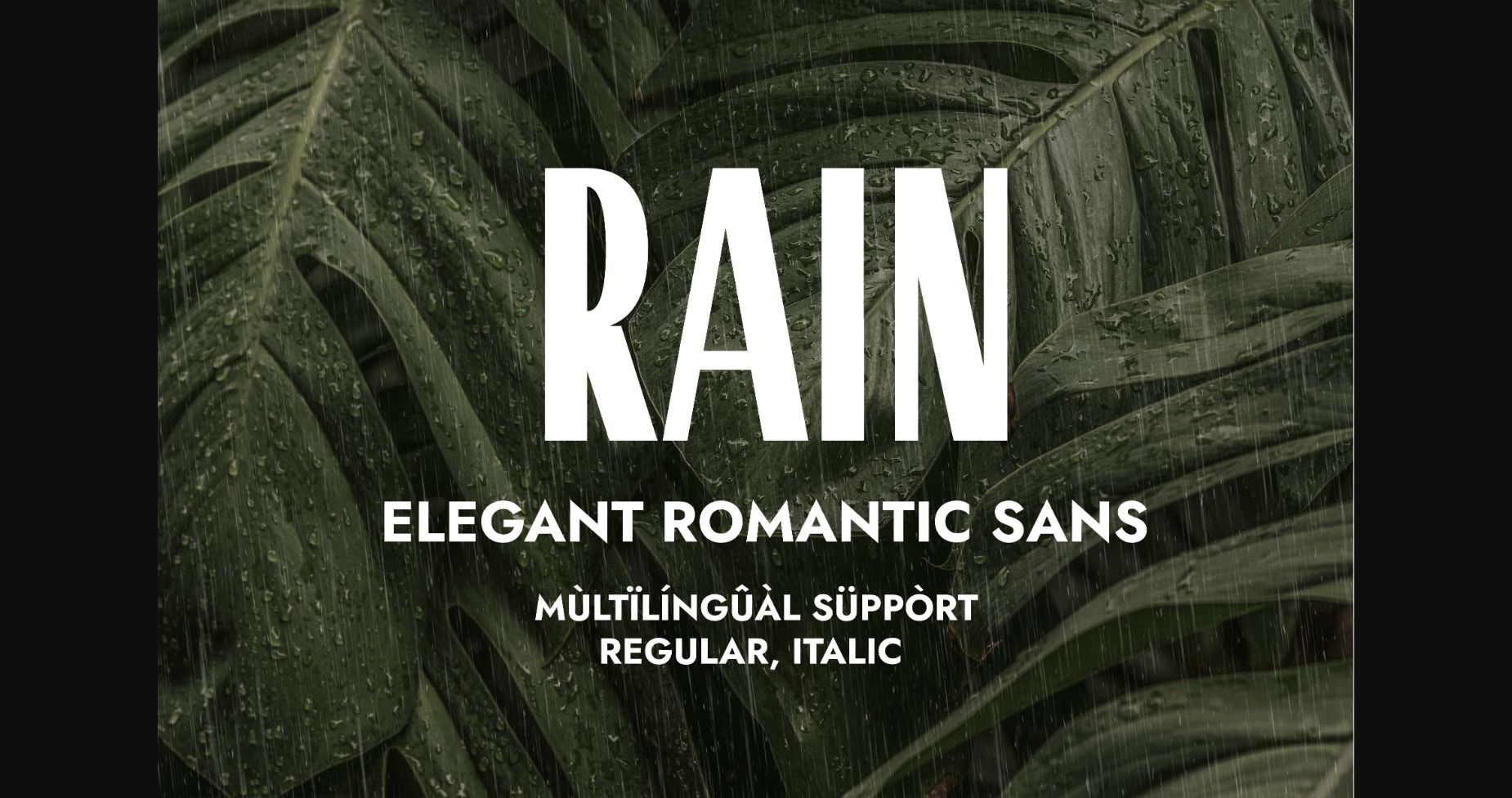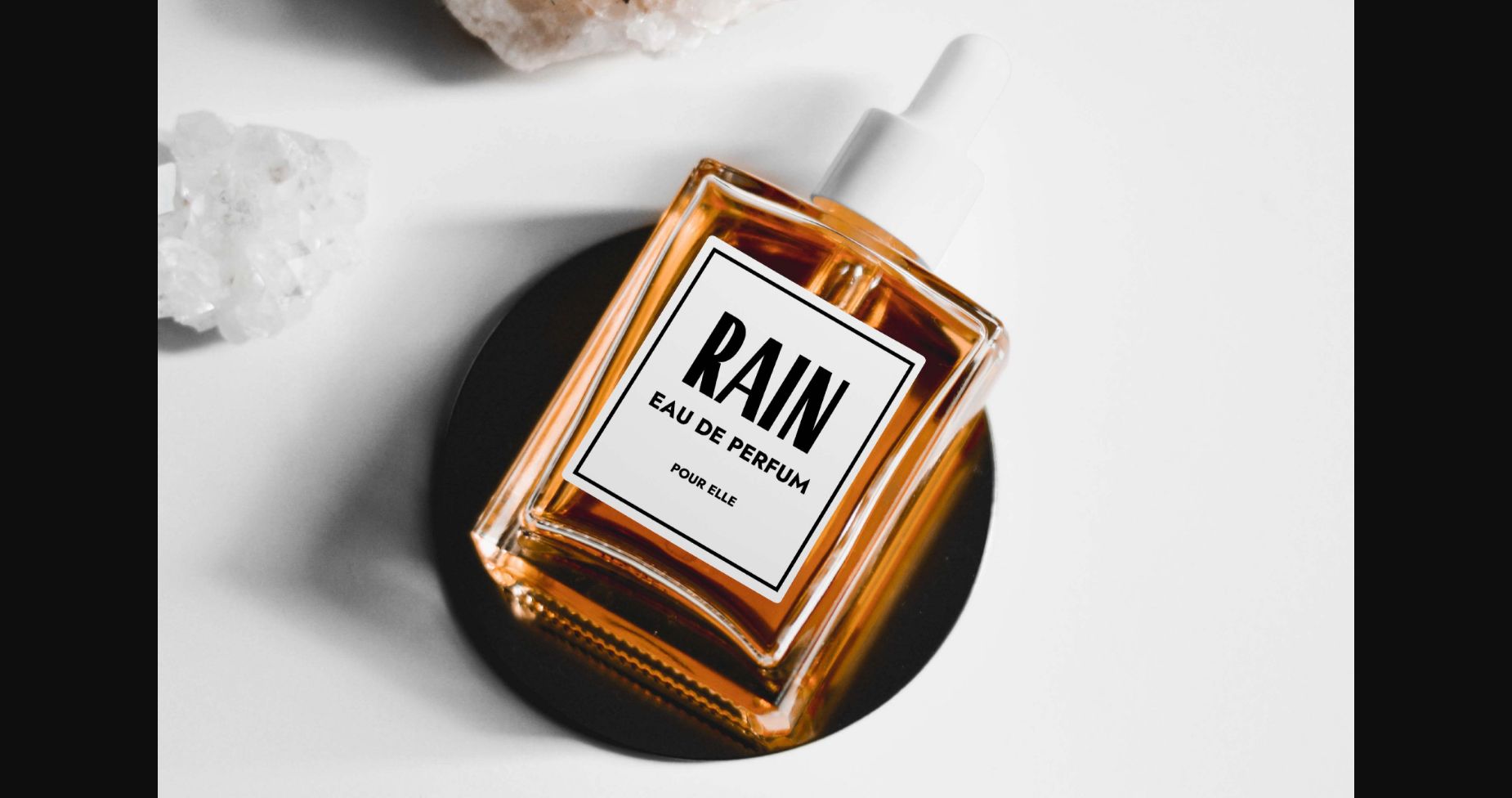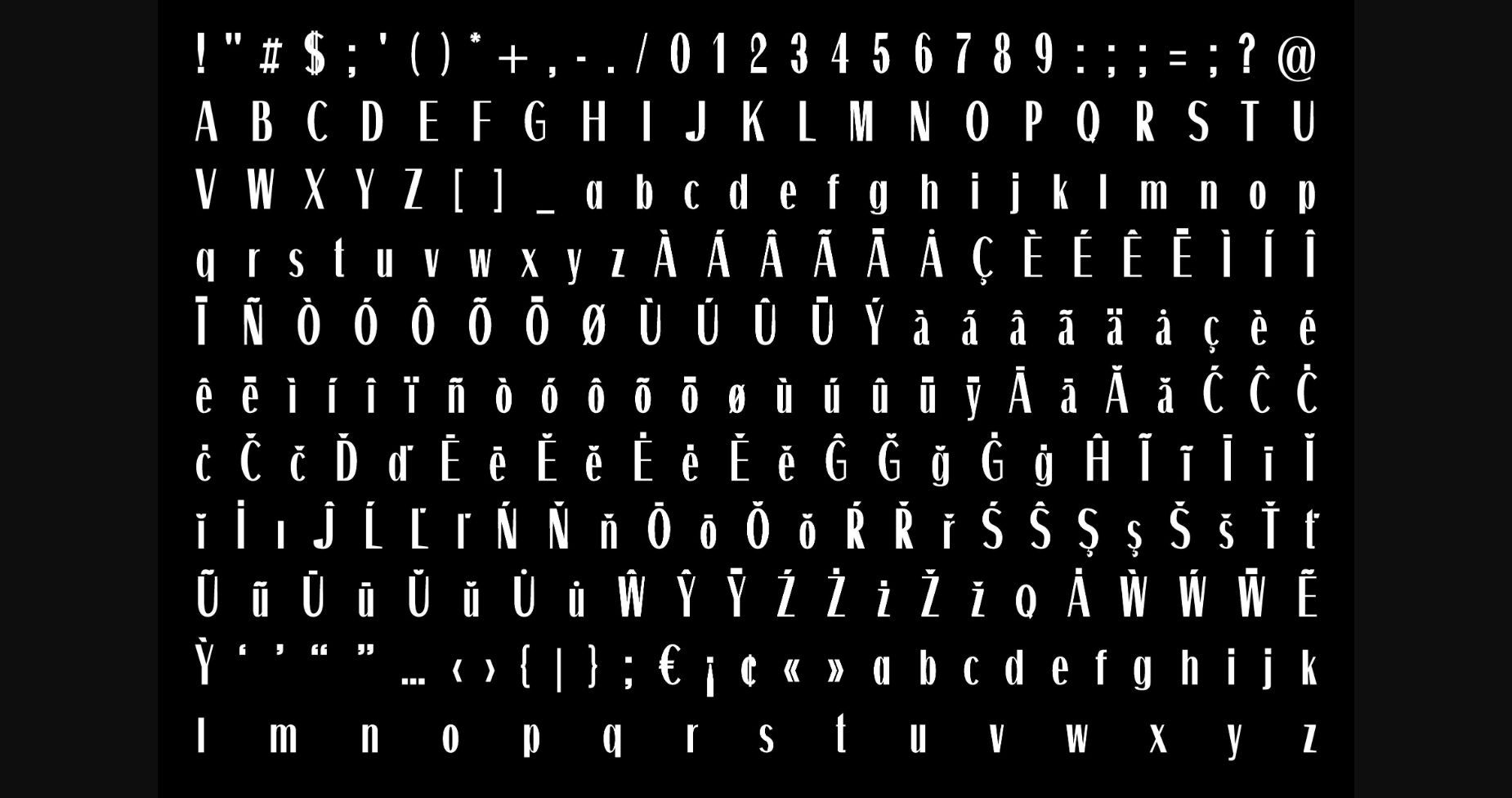
Rain Font
About Rain Font
Rain is a clean, tall, and grotesque sans serif typeface. Its amazing clean aspect renders it a vital choice when you want to opt-in for a clean minimalistic design. It can be used in various contexts, such as packaging design, product design, die-cutting design, fashion design, perfume, and cosmetics design. Use it in your creation confidently, and you will notice the infinite possibilities that can be easily acquired in any design challenge.